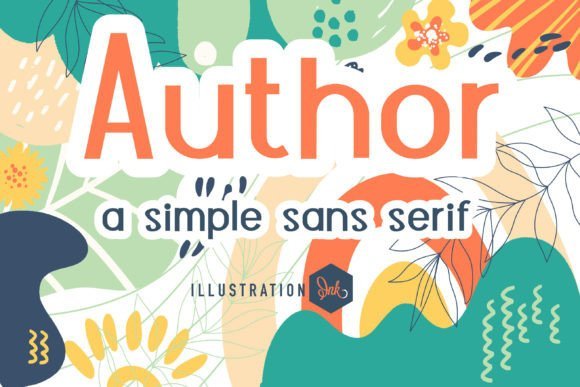
The Birth of a New Story: Introducing Author Font
Have you ever stared at a blank page, struggling to put your thoughts into words? The cursor blinks, taunting you with its emptiness. But then, suddenly, the words start flowing. The story takes shape, and the characters come alive. It’s a magical moment, and it’s exactly what Author Font is designed to evoke.
Author Font is a modern, hand-crafted sans serif font that’s perfect for writers, designers, and anyone who wants to add a touch of elegance to their work. With its clean lines and wide spacing between letters, it’s easy to read and understand, making it ideal for modern designs that need a fresh, simple, and approachable feel.
For designers, Author Font is a valuable tool that can help them create unique and creative content that stands out from the crowd. Its stylish and minimalist look makes it perfect for a wide range of applications, from book covers to website headers, and everything in between.
Author Font Key Features
- Font Family: Author Font is a unique, high-quality font family designed for authors and writers. It comes in 6 styles: Light, Regular, Medium, SemiBold, Bold, and Black.
- Unique Characteristics: Author Font features a clean, elegant design with subtle nuances that make it easy to read, even in long passages. The font’s x-height is optimized for readability, making it an excellent choice for authors and writers.
Author Font Review
As a designer, I’ve had the chance to work with “Author Font” on several projects. Here’s my honest review.
- The font’s classic and elegant feel makes it perfect for publishing, writing, and academic projects.
- The font’s readability is excellent, with clear letterforms and a good x-height.
- Author Font supports a wide range of languages, making it a great choice for global publications.
- The font’s versatility allows it to work well in both print and digital media.
- The font’s weight range is limited, which may not be suitable for projects that require a wide range of weights.
- The font may not be the best choice for projects that require a bold, attention-grabbing font.
Overall, I think Author Font is a solid choice for designers who need a classic, elegant font. While it may have some limitations, its readability and versatility make it a great option for a wide range of projects. However, it may not be the best choice for projects that require a bold, attention-grabbing font or a wide range of weights.
Tips for Getting the Most Out of Author Font
Author Font is ideal for book titles, author names, and other text that requires a classic and elegant feel. To get the most out of it, use it in combination with serif fonts for body text and make sure to adjust the font size accordingly.
Author Font is commonly used in book covers, author profiles, and other creative projects that require a touch of sophistication and elegance.